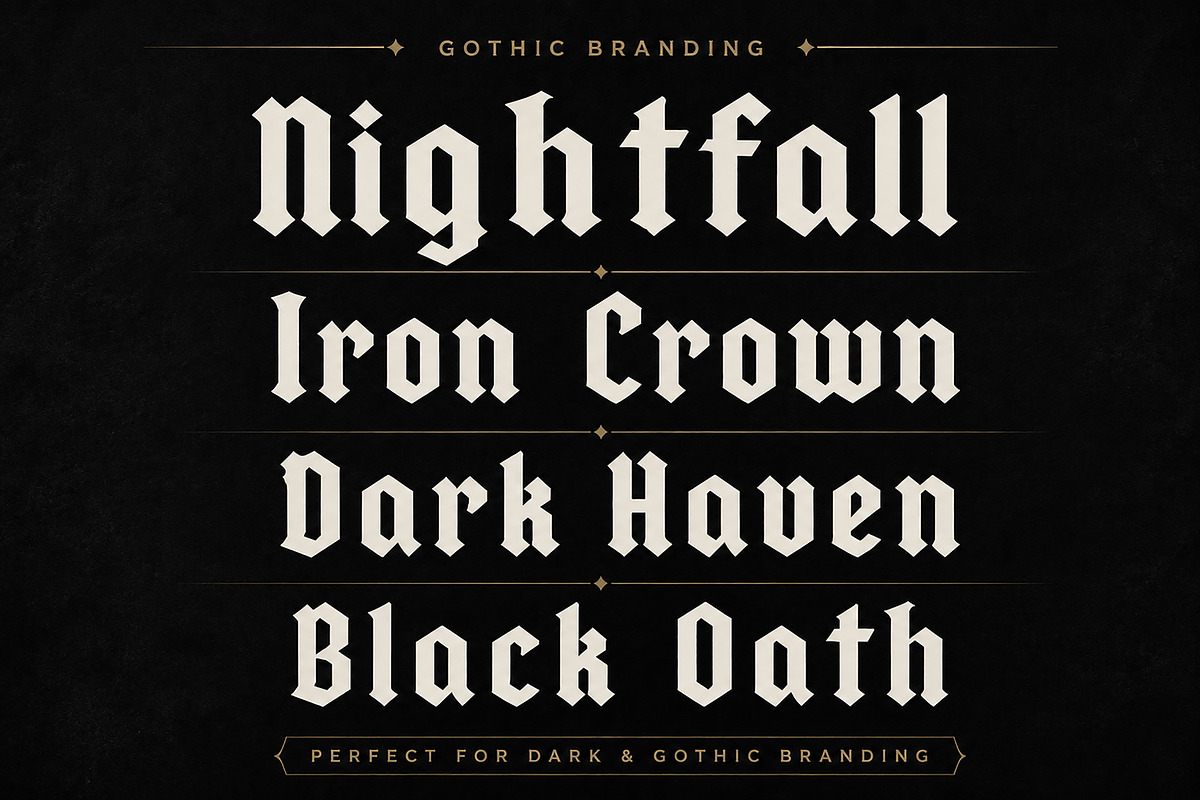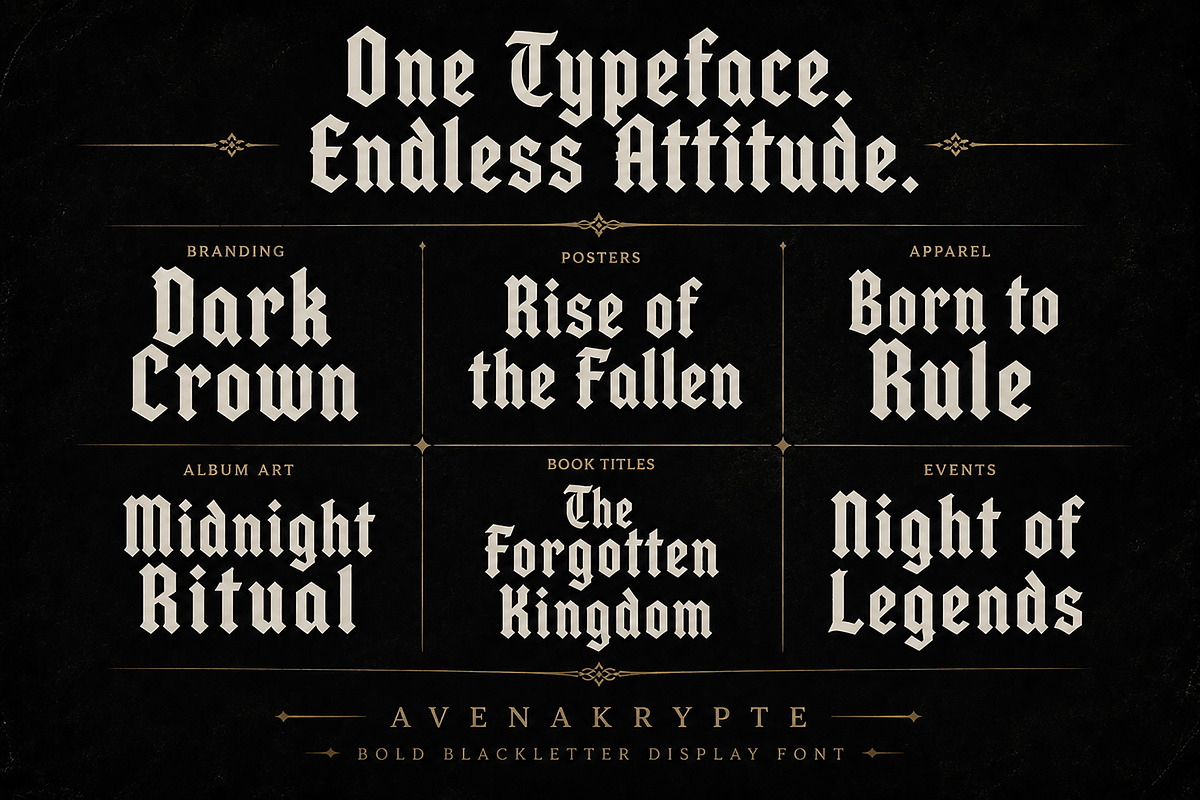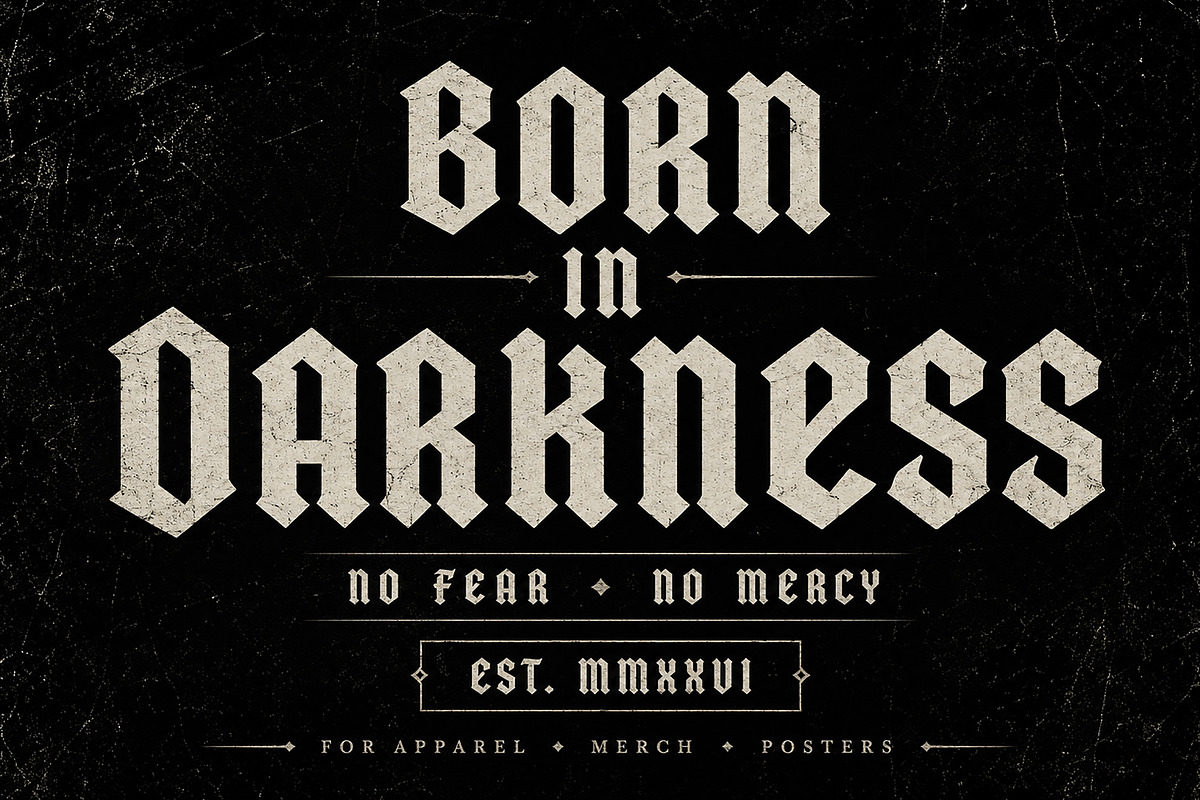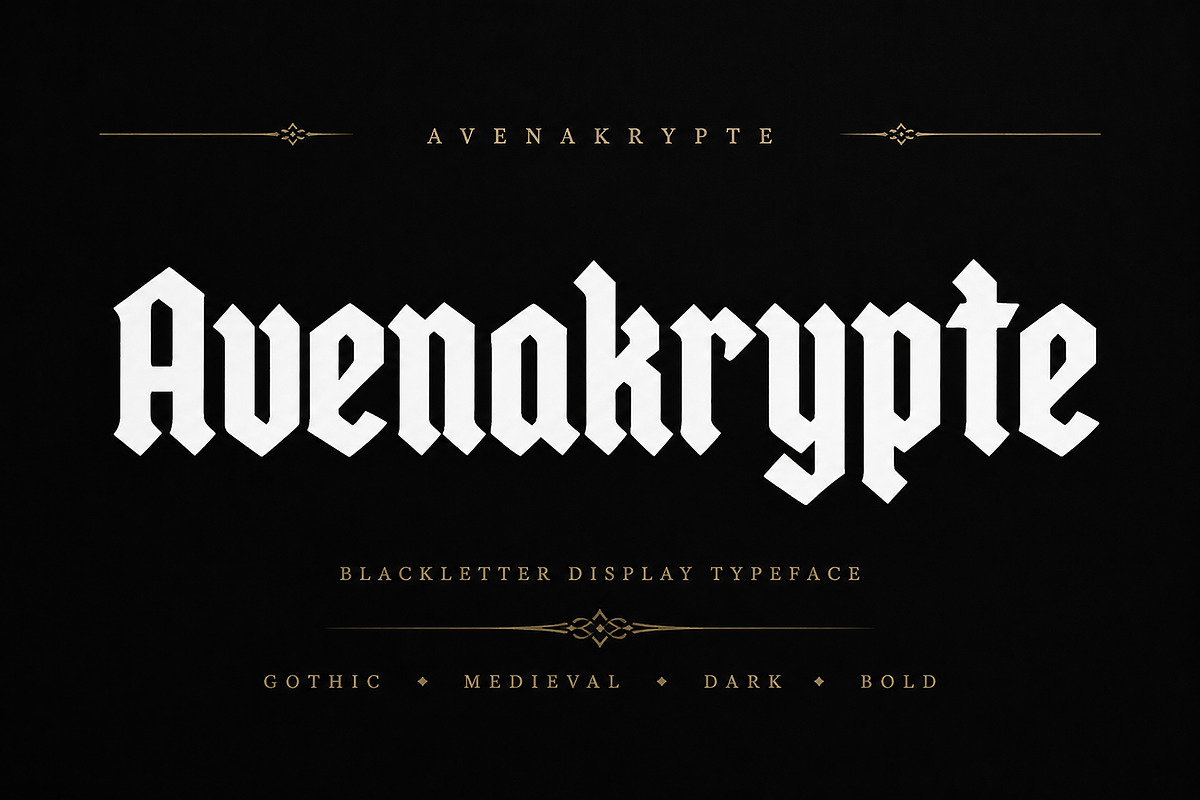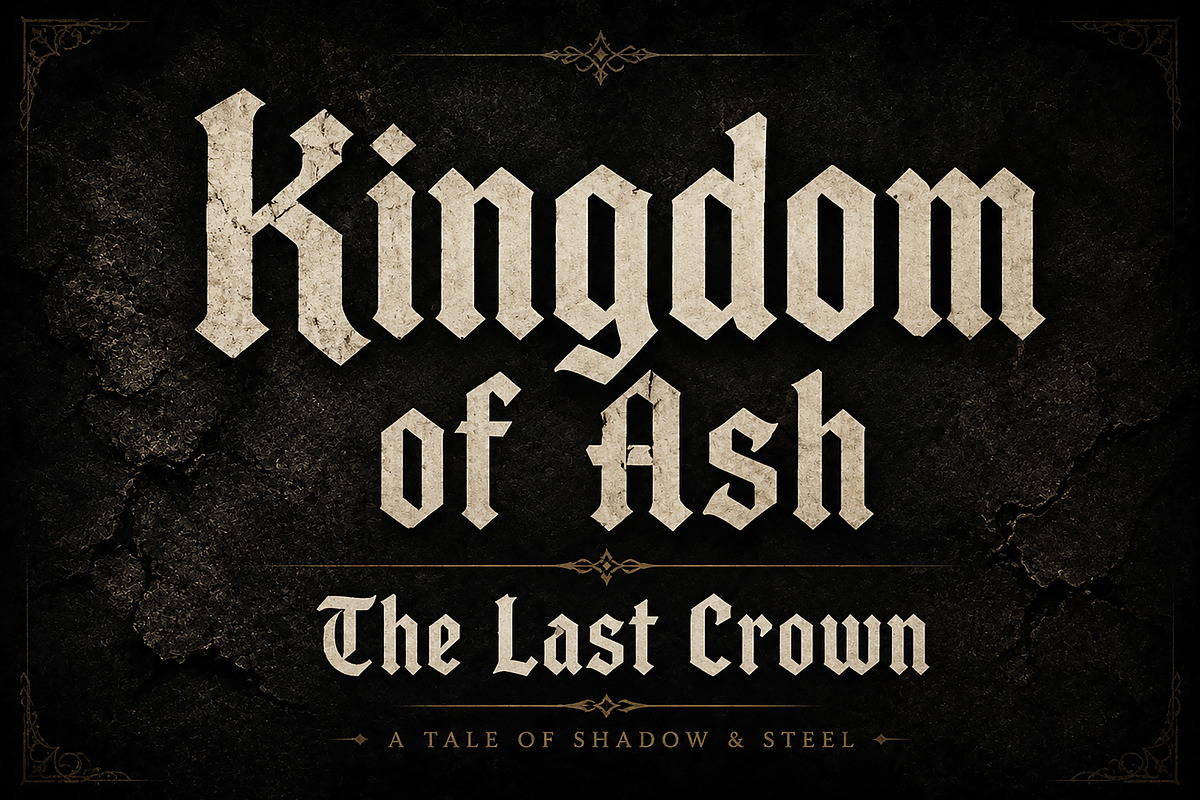
Avenakrypte
Avenakrypte is a bold and dramatic Blackletter display typeface inspired by classic Gothic and medieval typography. With its sharp angles, strong vertical structure, and powerful dark aesthetic, Avenakrypte is designed to create an instant visual impact in display-focused designs.
Its distinctive Gothic character makes it an excellent choice for branding, logos, posters, apparel designs, album artwork, book titles, fantasy projects, medieval-themed designs, event graphics, merchandise, and other creative projects that need a strong and mysterious typographic presence.
Avenakrypte works especially well when you want your typography to feel bold, historic, rebellious, dark, powerful, and distinctive.
Whether you're designing a striking brand identity, an atmospheric poster, a dramatic title, or a statement apparel graphic, Avenakrypte brings a strong Blackletter attitude to your typography.
Gothic & Blackletter Branding
Logo & Identity Design
T-Shirt & Apparel Graphics
Posters & Flyers
Album & Music Artwork
Book & Fantasy Titles
Medieval & Historical Projects
Dark-Themed Designs
Event & Festival Graphics
Merchandise & Packaging
Creative Typography Projects
Font Name: Avenakrypte
Style: Bold Blackletter / Gothic Display